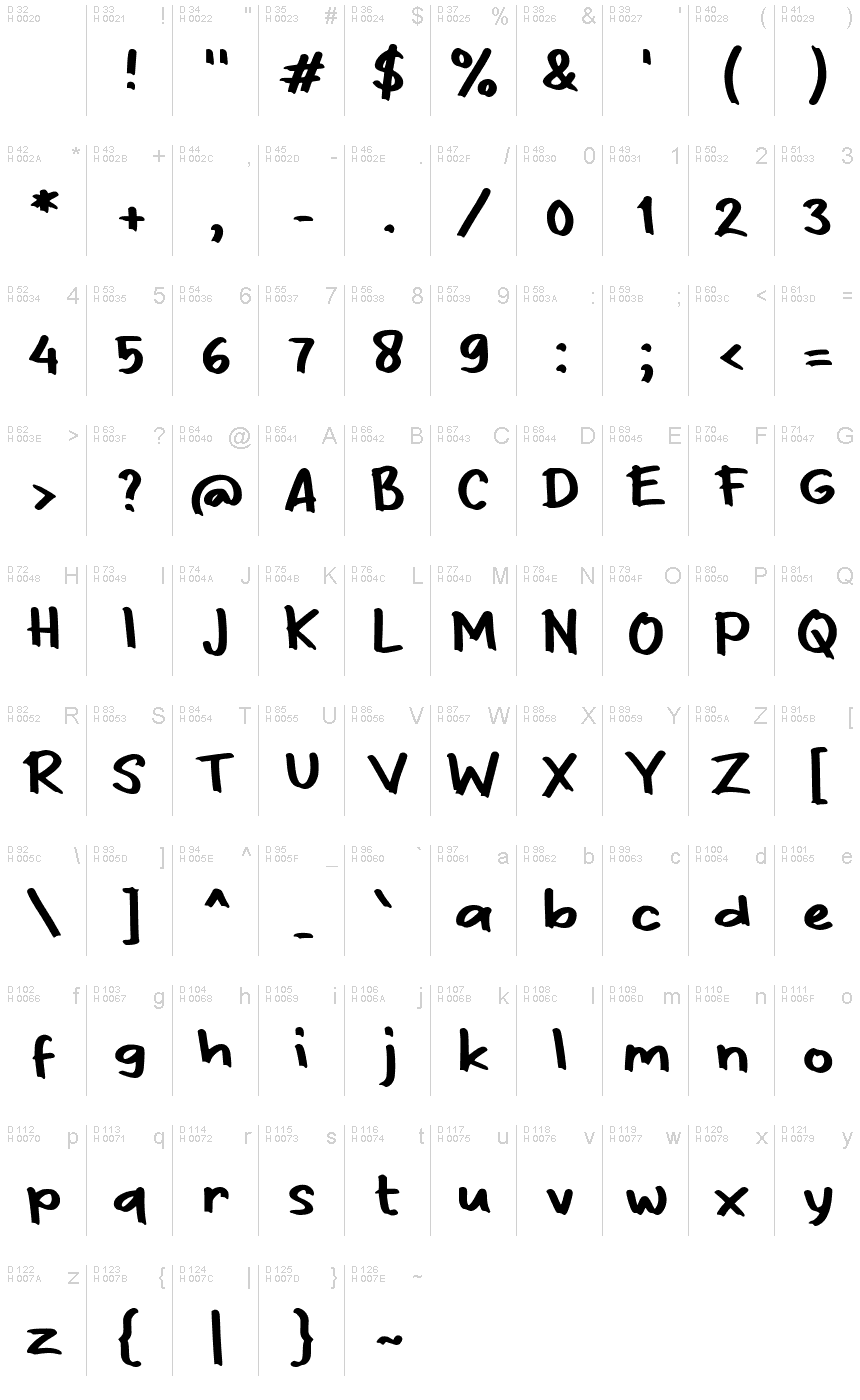
Flean
Flean, a captivating brush font by wep, brings a touch of artistic flair to any project. Its semi-bold weight adds a hint of boldness, while the semi-expanded width ensures better readability without compromising its unique style.
Perfect for creating eye-catching logos and branding materials that demand attention. Let Flean's expressive brush strokes breathe life into social media graphics, posters, and apparel designs. With its versatile nature, this font is also well-suited for packaging labels and magazine headlines - adding an element of modernity to any visual composition.